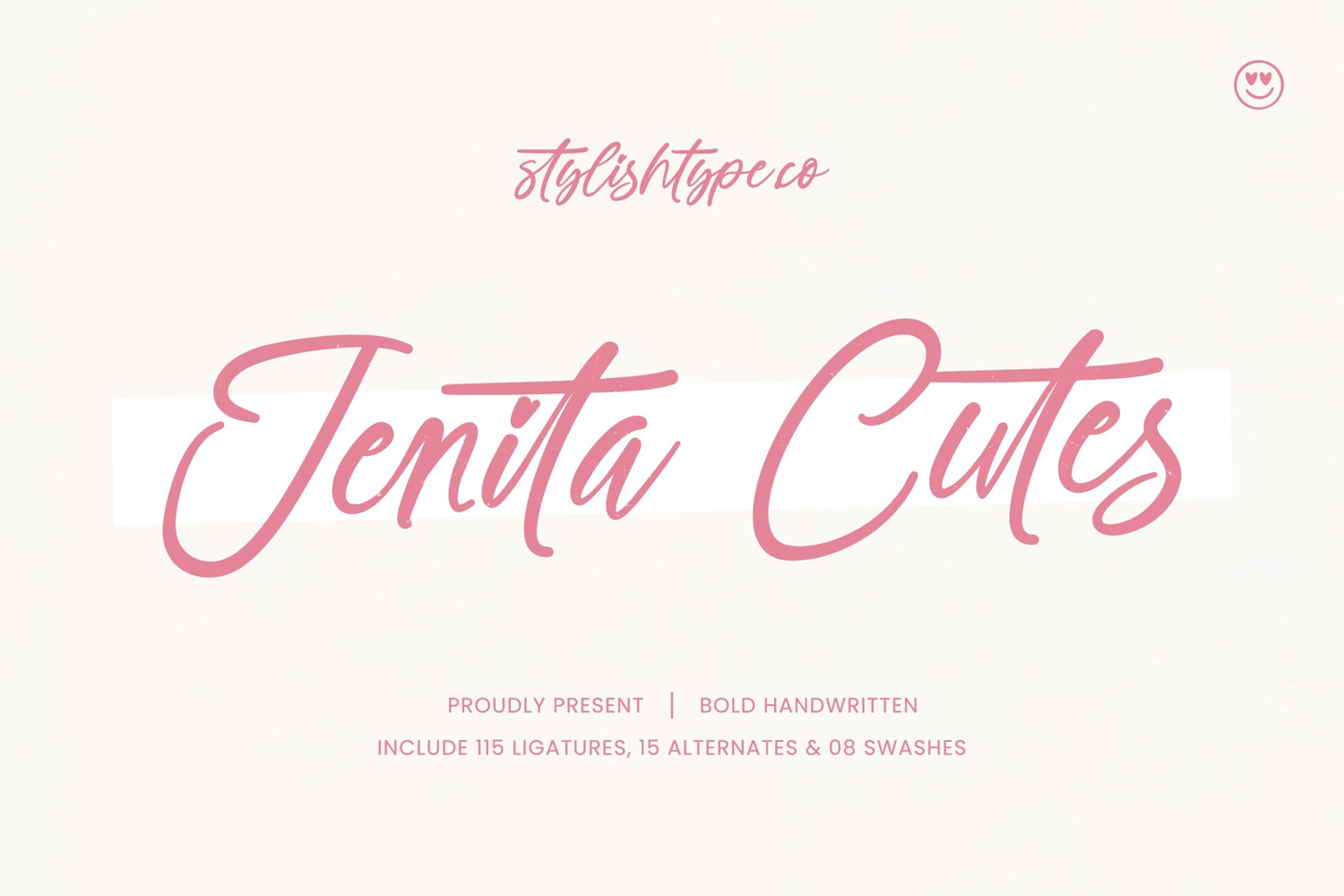
Jenita Cutes - Bold Handwritten Font
Jenita Cutes
Jenita Cutes Italic
Jenita Cutes - Bold Handwritten Font delivers an instant dose of authentic personality and warmth to any project. This expressive script perfectly balances bold weight with fluid, natural connections, ensuring your message is both legible and highly emotive. It cuts through the digital clutter, offering a bespoke, crafted feel ideal for projects demanding immediate attention and a friendly aesthetic.